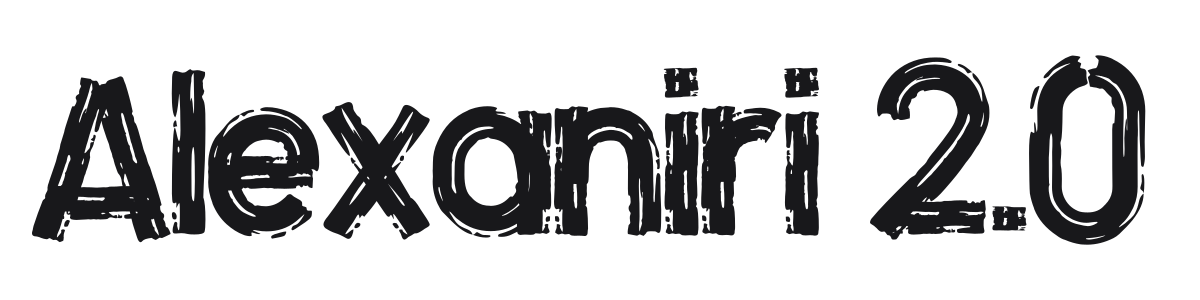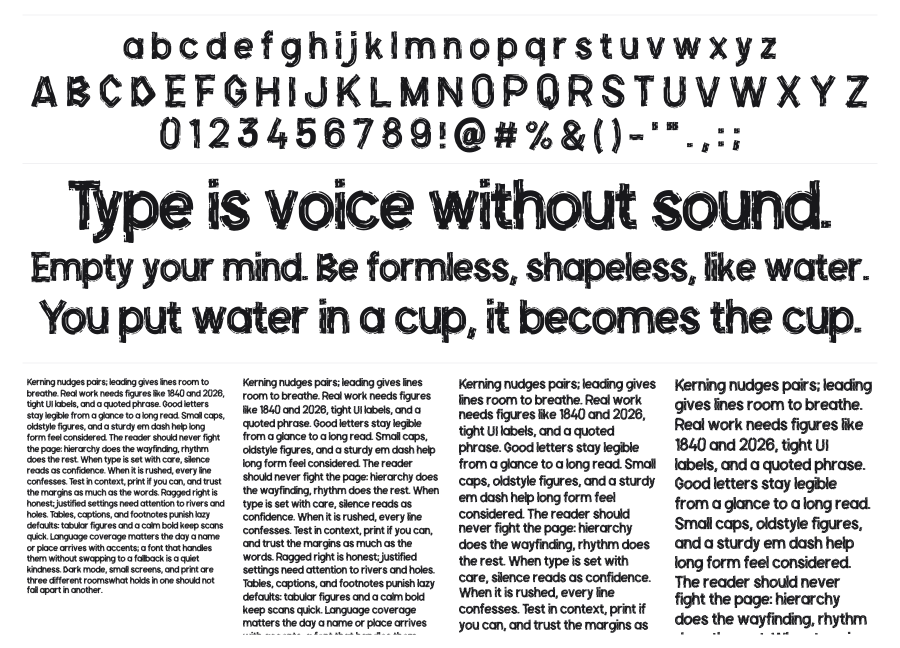
Alexaniri 2.0
Alexaniri 2.0 is a heavy rounded sans-serif built on a friendly, casual structure and then thoroughly roughed up with distressed, ink-worn texture. The underlying forms are soft and approachable, but the eroded edges and splintered strokes give it the feel of a rubber stamp that's seen better days. It suits labels, posters, and branding that wants warmth with a handmade edge.